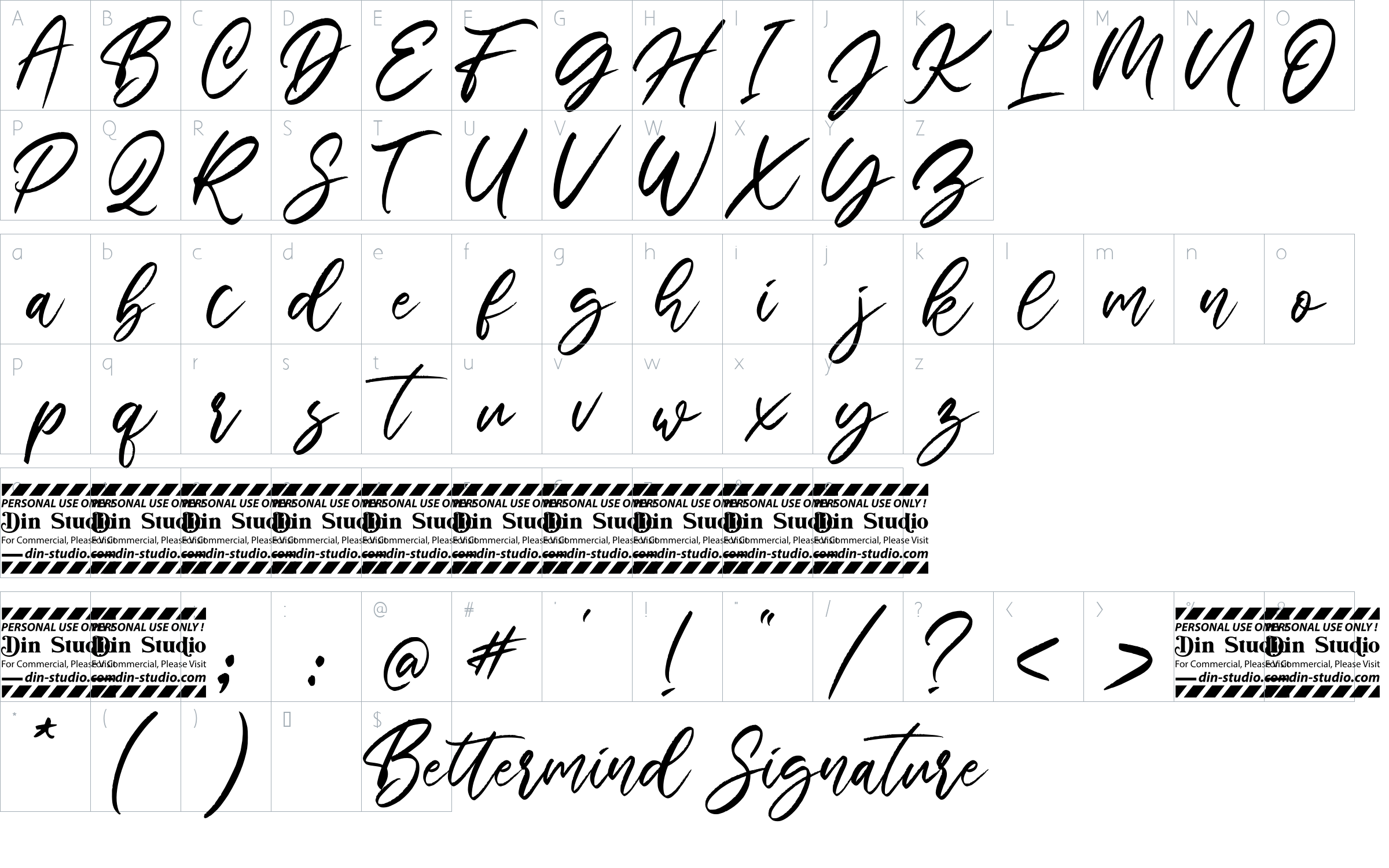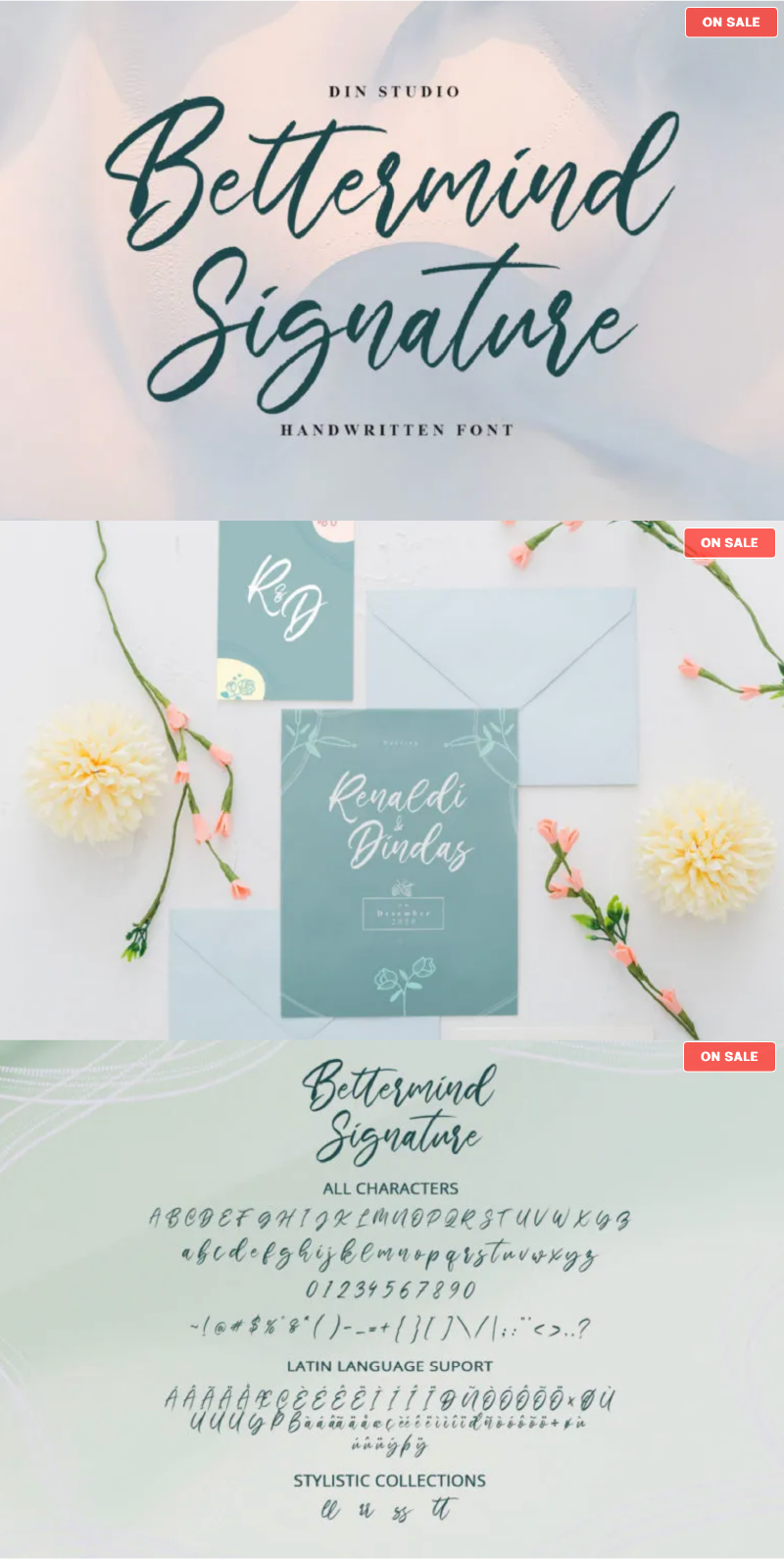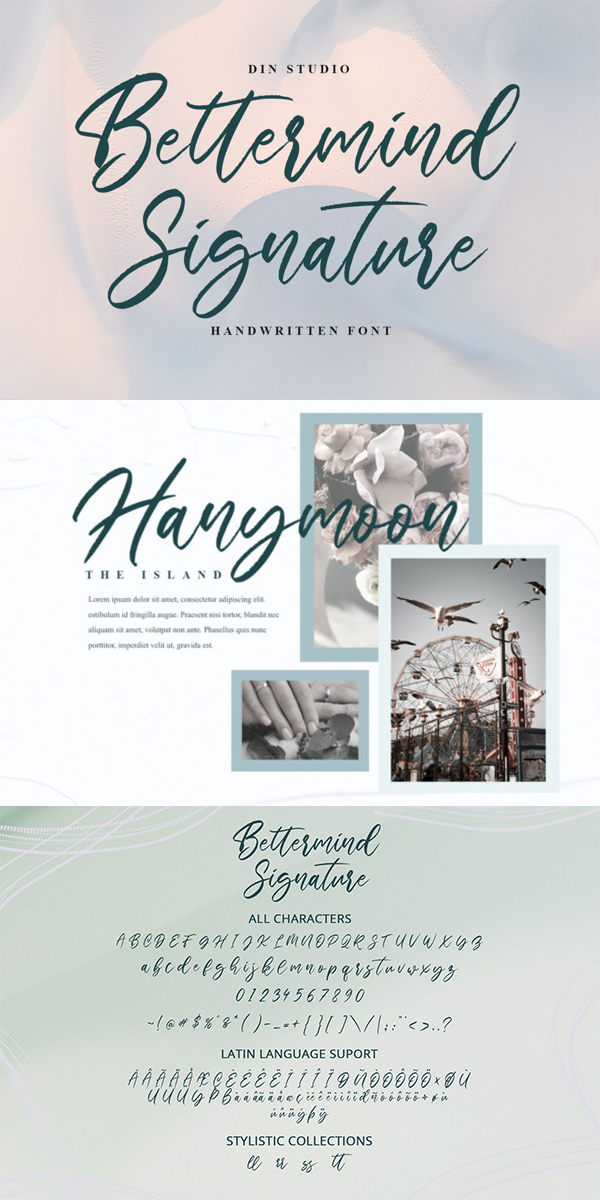
Bettermind Signature Font
About Bettermind Signature
Bettermind Signature is a handwritten font. With a classy and beautiful handwritten style, it brings a classy and chic typeface. Made for any professional projects. Bettermind signature is best used for weddings invitation, ads, branding, logotype, and quotes. The font includes full set of hand lettered uppercase and lowercase letters, numerals, punctuation, and ligatures. See the previews above to get some inspiration on how you can use them. Happy Designing!
- Stylistics
- Numerals and Punctuation